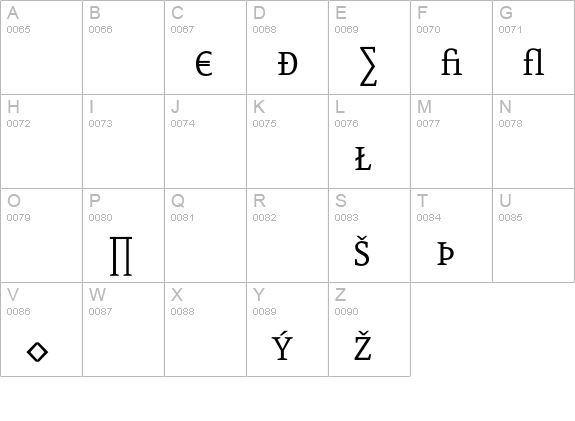
Eureka-RomanExpert is a sophisticated and elegant font that exudes a sense of classic beauty and timeless appeal. Its sleek lines and delicate curves make it perfect for adding a touch of refinement to any project. The font's expertly crafted letterforms are designed to make a statement while maintaining a sense of grace and sophistication. What sets Eureka-RomanExpert apart is not only its stunning design, but also the fact that it is available for free. Yes, you read that right - this exquisite font can be downloaded for free at FontsMarket.com. Whether you're working on a branding project, designing invitations, or creating a stunning logo, Eureka-RomanExpert is sure to elevate your work to new heights. Don't miss out on the opportunity to add this stunning font to your collection. Download Eureka-RomanExpert for free today and bring a touch of elegance to your designs.